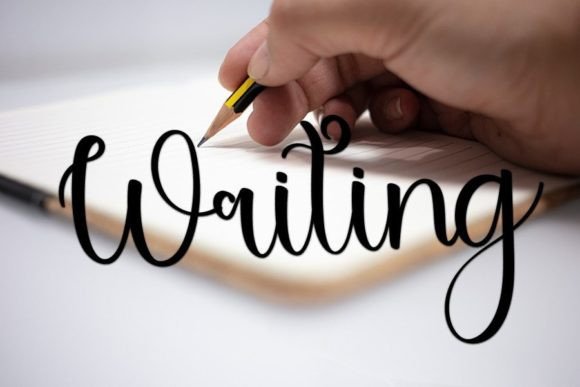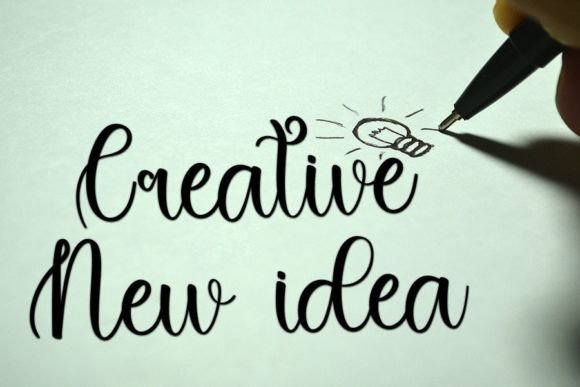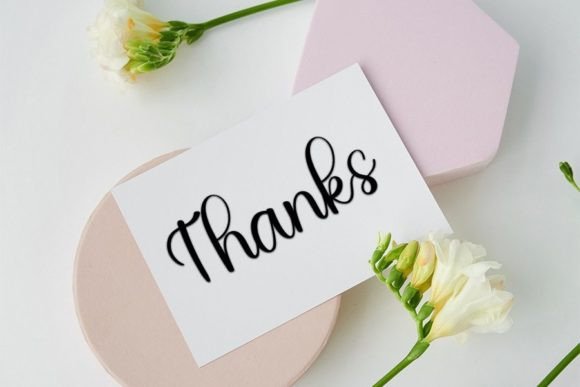
Step into the world of elegance with Signature, a neat and beautiful handwritten font that exudes sophistication and charm. Designed with an elegant touch, this font is perfect for your favorite projects, promising to make them stand out with its distinct and timeless style.
The beauty of Signature lies in its neat and well-crafted handwritten design. Each letter is a testament to elegance, adding a touch of refinement to your text. Whether you’re working on logos, branding materials, invitations, or any project that demands a distinctive style, Signature is crafted to elevate your designs.
The distinct and timeless style of Signature sets it apart, making it a font that captures attention and leaves a lasting impression. Its versatility allows it to seamlessly integrate into various design contexts, providing you with the freedom to create spectacular visuals.
Consider Signature not just as a font but as a design tool that brings an air of sophistication to your projects. Its neat and beautiful handwritten style makes it suitable for a wide range of applications, ensuring that your designs exude elegance and style. Let Signature be the font that transforms your creative ideas into spectacular designs.